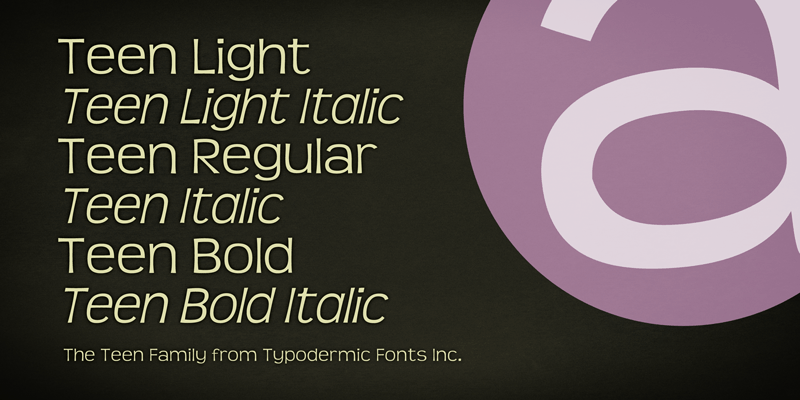
Font name: | Teen |
Teen is a superelliptical, casual flare display font. These fonts include a license that allows free commercial use: sometimes referred to as a desktop license. This allows you to install the fonts on a computer and use them to create posters, web graphics, game graphics, t-shirts, videos, signs, logos and more. Read the license agreement for details. If you'd like to embed these fonts in an app, ebook, on the web or anything that's not covered by the desktop license agreement, visit the link below. You'll find distributors who offer different types of licenses or you can contact me for help. http://typodermicfonts.com/teen/ |